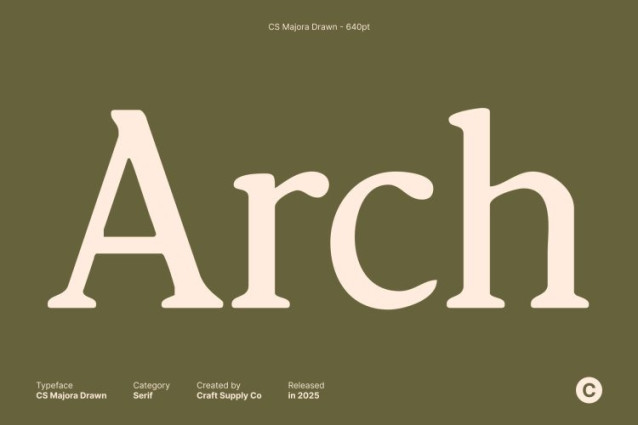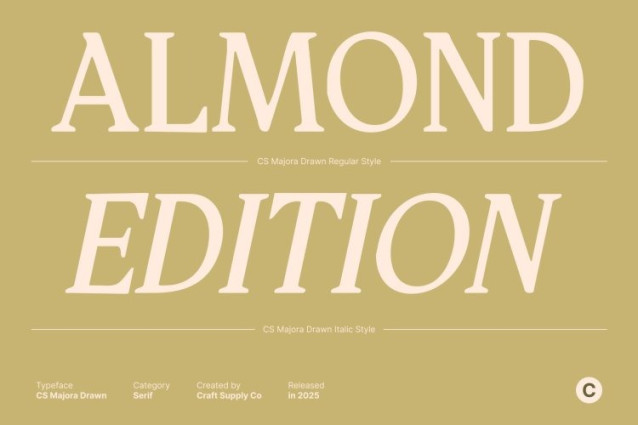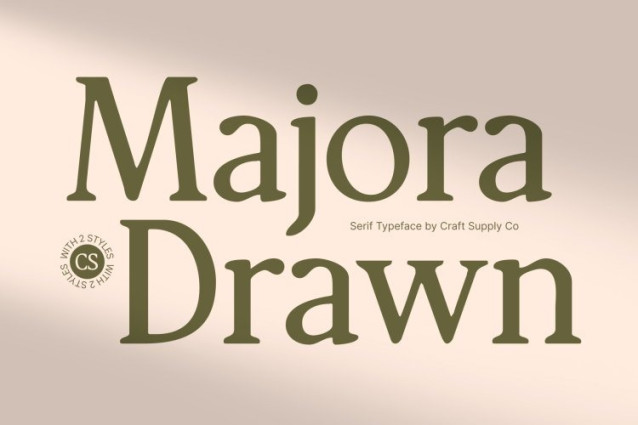
CS Majora Drawn Font
CS Majora Drawn Font This is a contemporary serif font that reinterprets classic typographic traditions through a clean, modern lens. Refined serifs, balanced proportions, and subtle details create an elegant foundation, while the drawn effect introduces gentle handcrafted nuances that add warmth and individuality. This combination results in a typeface that feels timeless yet fresh.
Professional Look with Subtle Character
Designed for clarity, sophistication, and visual harmony, delivers a confident and trustworthy impression. Its carefully constructed letterforms and consistent spacing ensure smooth reading flow, while the drawn texture adds character without disrupting its polished appearance. It’s ideal for designs that require authority softened by artistic charm.
Versatile for Corporate and Editorial Use
This font performs beautifully in editorial layouts, corporate branding, annual reports, company profiles, and premium presentations. Its elegant structure supports professional communication, while the handcrafted touch brings refinement and personality to otherwise formal compositions.
Timeless Style with Contemporary Appeal
Balancing classical serif heritage with modern sensibility, this font remains relevant across evolving design trends. It’s a perfect choice for designers seeking a sophisticated serif font that feels enduring, expressive, and thoughtfully crafted delivering elegance, credibility, and subtle artistic depth in every use.